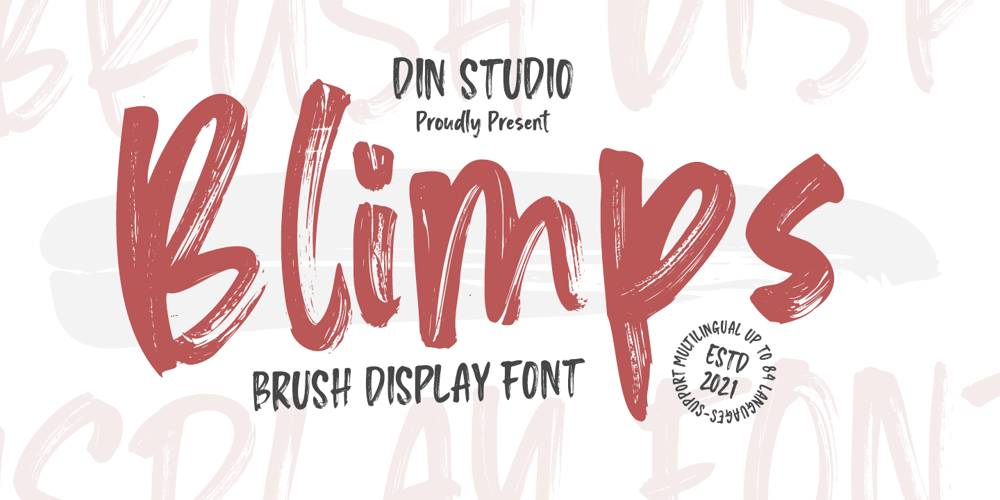
Blimps Font Family was designed by Donis Miftahudin and published by Din Studio. Blimps contains 1 styles and family package options. Are you ready to make your branding stand out? Do you dream of creating headings that stand out and inspire creativity, imagination, modernity, and endless fun? Looking for an elegant and stylish font? We’ve got what you want.Blimps- A Brush Font Blimps is a fantastic font. A display font that is combined with handcrafted script brush font. Designed primarily as a captivating font to add the right amount of modernity and style, This font is an excellent choice to ensure a great font match for your designs and projects! Well suited to titles, poster designs, branding, logos, and many more.Our font always includes Multilingual Support to make your branding reach a global audience. Features: Ligatures Alternates Stylistic Set PUA Encoded Numerals and Punctuation Thank you for downloading premium fonts from Din Studio